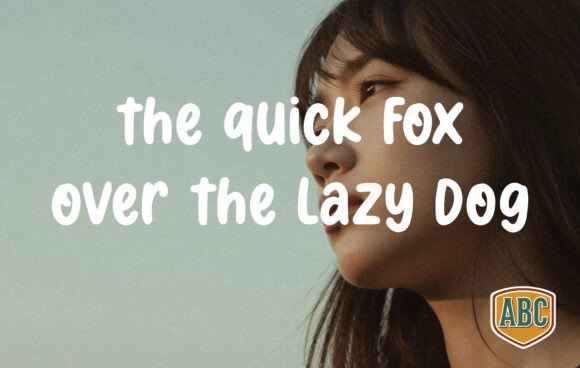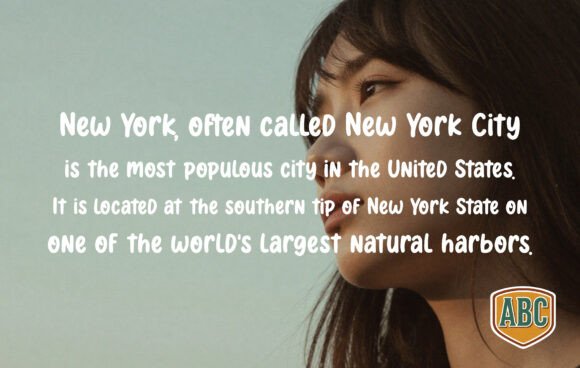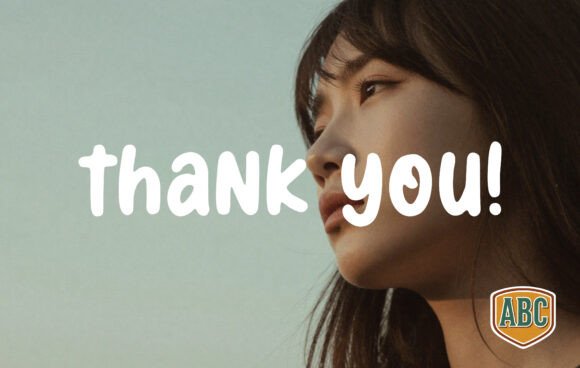
Introduction to Light Sky Font
LightSky is a friendly, hand-drawn display font that radiates warmth and approachability.
With its soft, rounded terminals and organic, slightly irregular strokes, it captures a sense of youthful energy and effortless charm It is an exceptional choice for childrenโs branding, social media graphics, and creative projects that need to feel โhumanโ and inviting.
Key Features of Light Sky Font